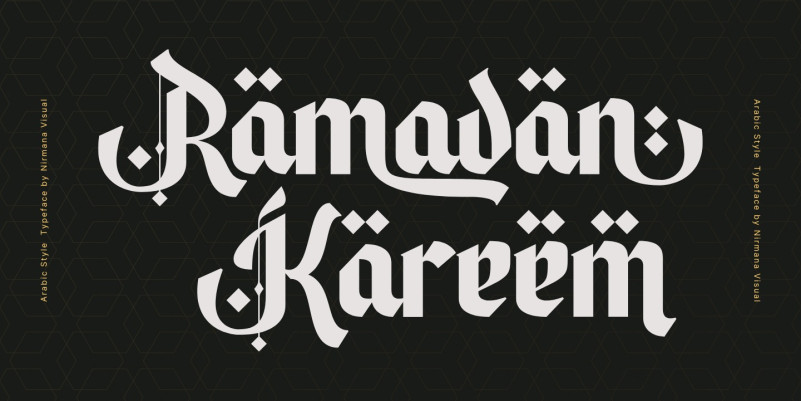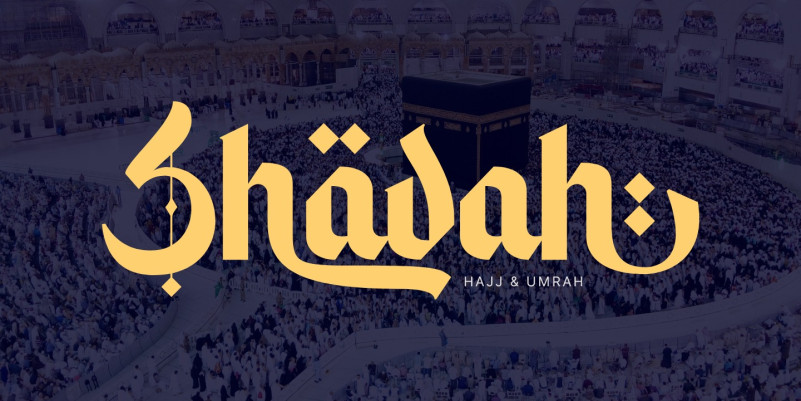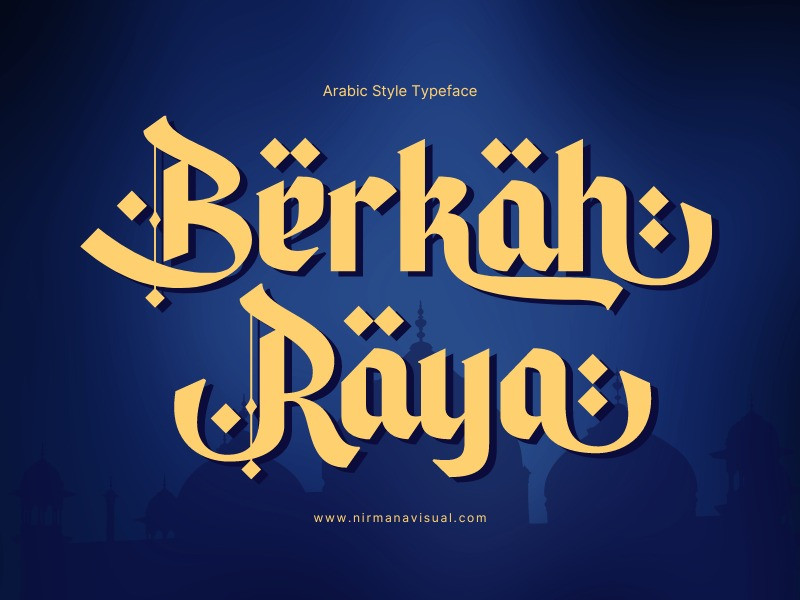
Berkah Raya Font
Berkah Raya Font, Inspired by arabic Calligraphy, beautiful typographic harmony for a diversity of design projects, including logos & branding, social media posts, advertisements & product designs.